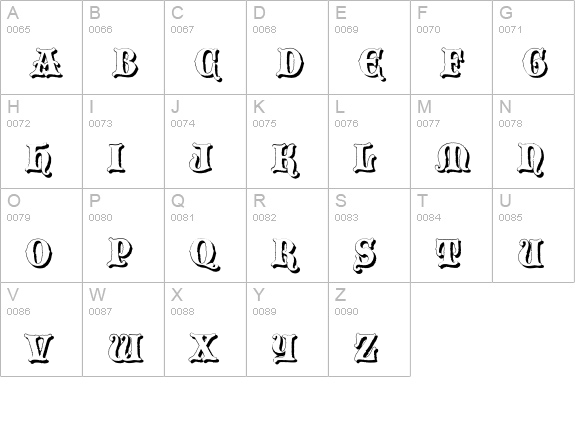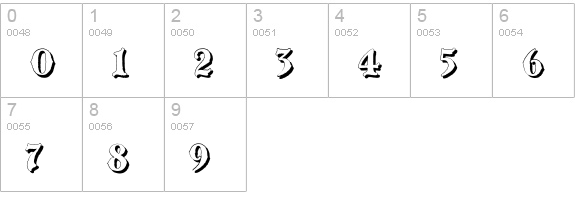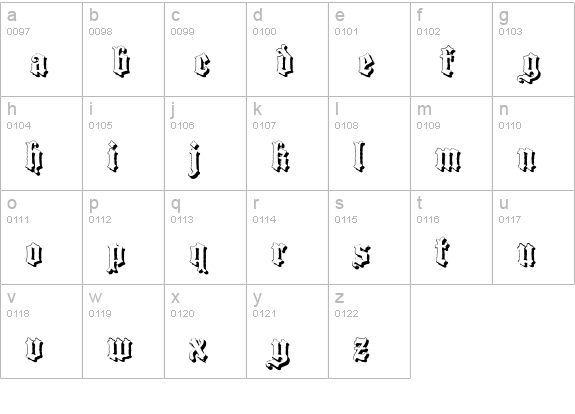
Blackwood Castle Shadow Font Details
Introducing Blackwood Castle Shadow, a captivating and enigmatic typeface that embodies the allure of ancient castles and mysterious shadows. This font exudes an air of intrigue and elegance, perfect for adding a touch of mystique to your designs. Blackwood Castle Shadow boasts a distinct and bold lettering style, with sharp, shadow-like contours that create a mesmerizing visual effect. Each character has been meticulously crafted to capture the essence of the castle's enigmatic atmosphere, drawing inspiration from the intricate details found within its walls. This font is versatile and adaptable, making it suitable for a wide range of design projects. Whether you're working on a logo, packaging, branding, or even a book cover, Blackwood Castle Shadow will add a touch of sophistication and mystery to your creations. What sets Blackwood Castle Shadow apart is its availability as a free download exclusively at FontsMarket.com. This means that you can enjoy all the captivating qualities of this font without any cost, making it accessible to designers, artists, and creatives alike. With just a few clicks, you can enhance your designs with the timeless elegance and enigmatic allure of Blackwood Castle Shadow. So, if you're seeking a font that embodies the magic and mystery of ancient castles, look no further than Blackwood Castle Shadow. Download it now for free at FontsMarket.com and unlock a world of captivating design possibilities.